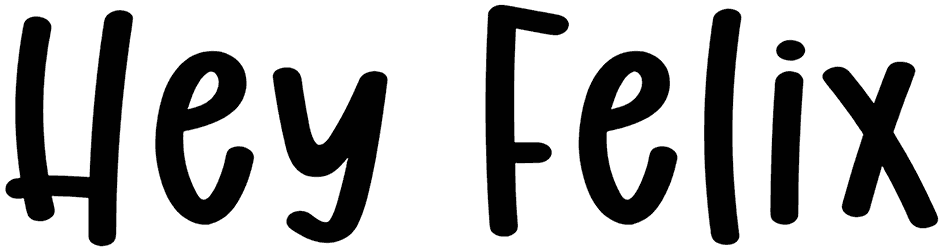
Hey Felix Font
Words have a key effect on the attractiveness of the design, and this handwritten font can make your text playful and funny. Hey Felix includes realistic, cute letters and reflects an interesting mood. With an almost full cover of characters, the Hey Felix font will be an apt item for short or long projects like apparel, posters, kids’ books, and so on.